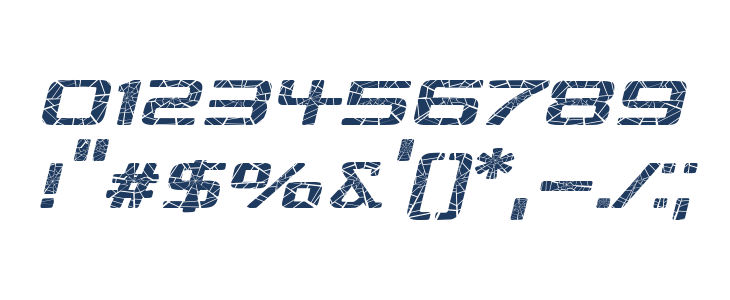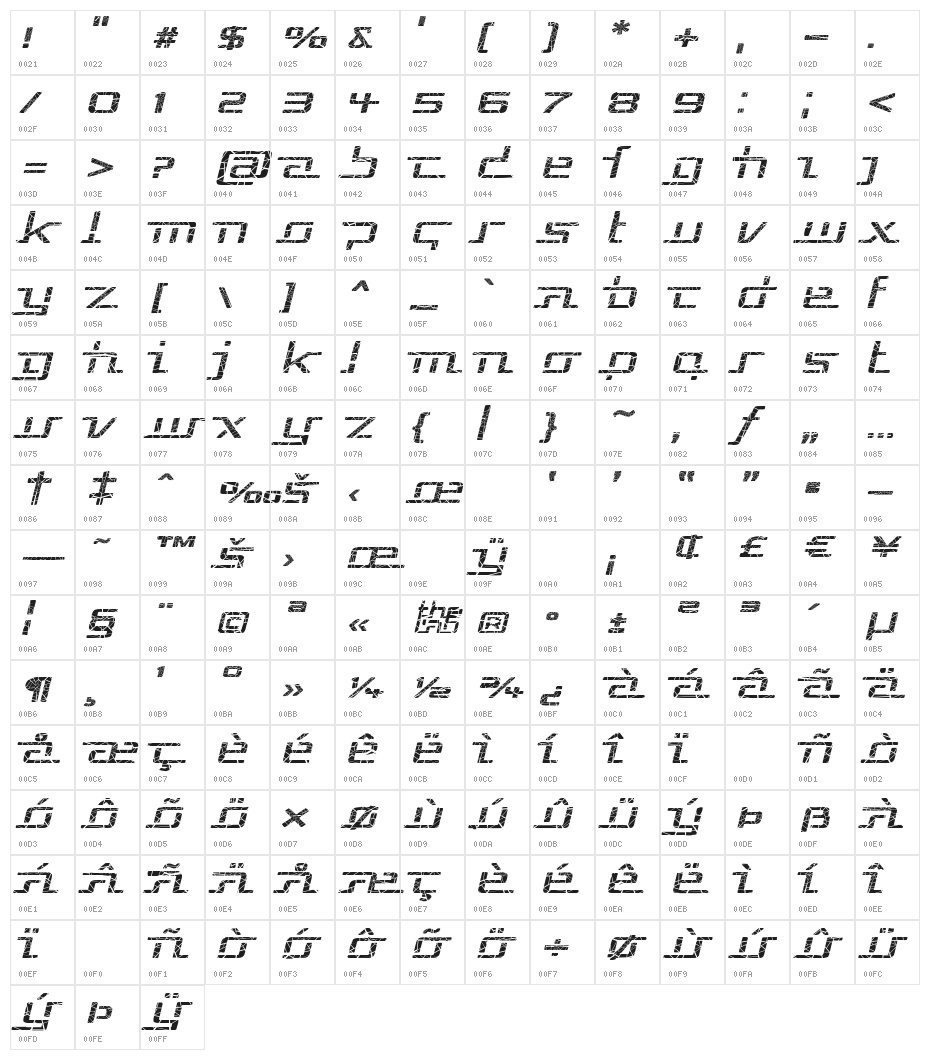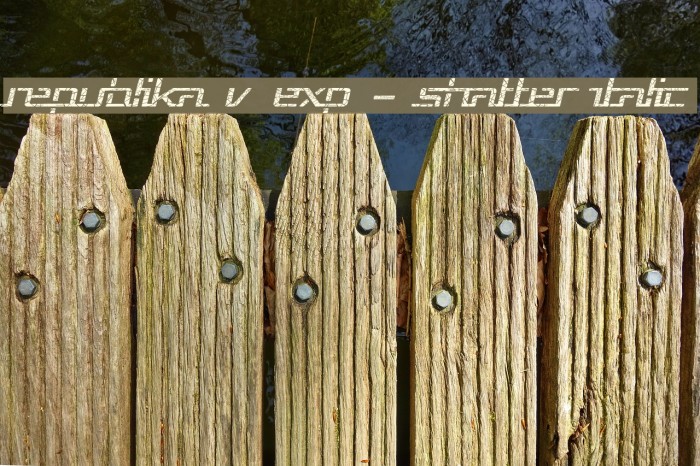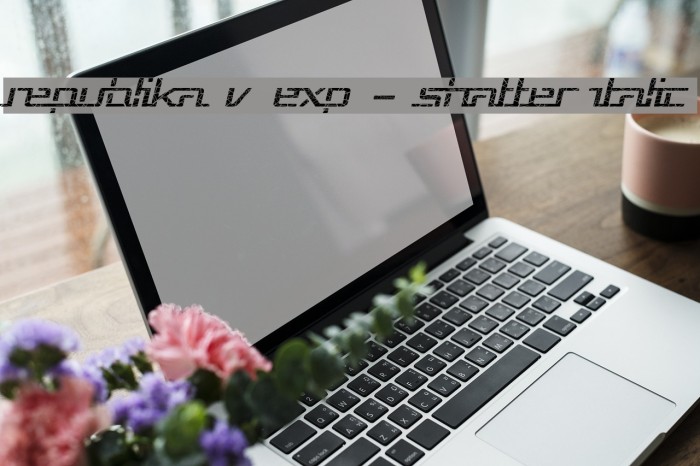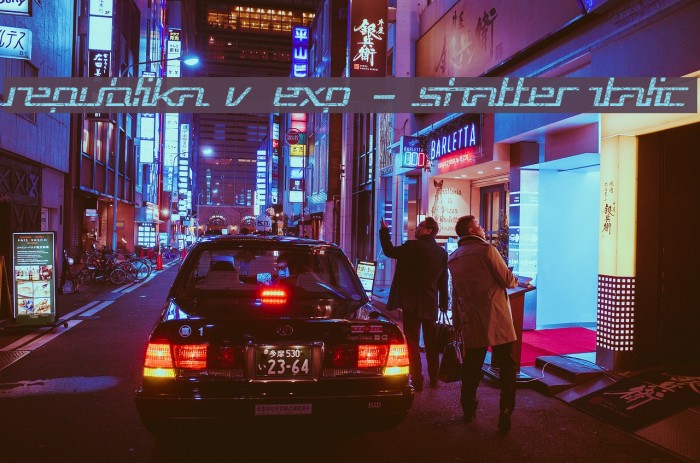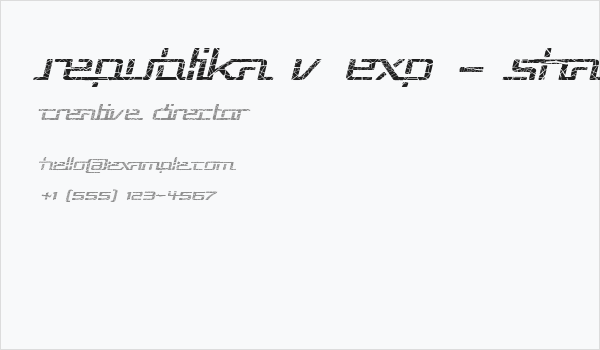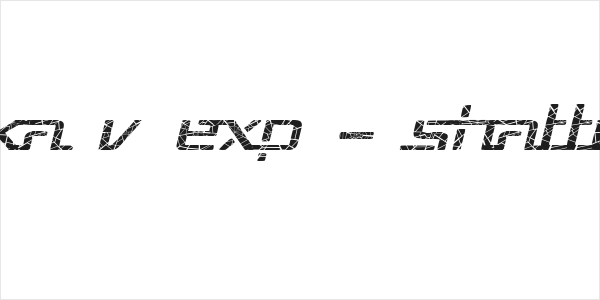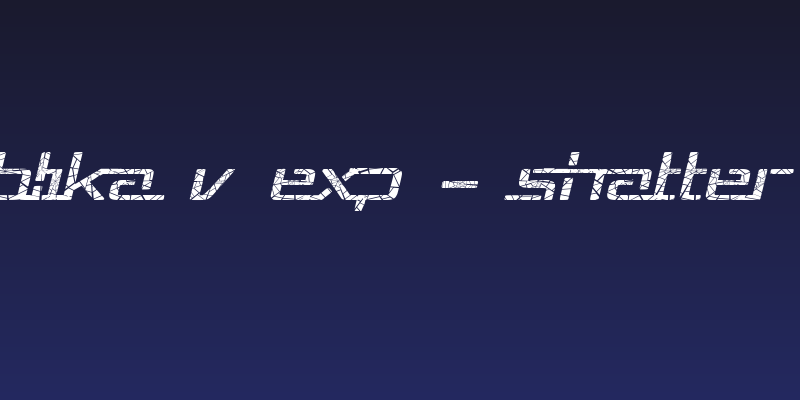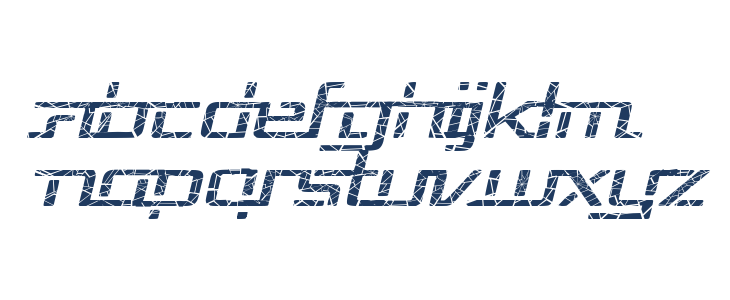
Republika V Exp - Shatter Italic Font
Republika V Exp - Shatter Italic Description
This font features a unique shattered effect, giving each character a fragmented and dynamic appearance. The italicized style adds a sense of motion and fluidity, while the geometric shapes within each letter create a modern and edgy look. The font is highly decorative, making it ideal for eye-catching designs. The uppercase and lowercase letters maintain a consistent style, with sharp angles and a futuristic aesthetic. Numbers and special characters are equally stylized, ensuring a cohesive look across all text elements.